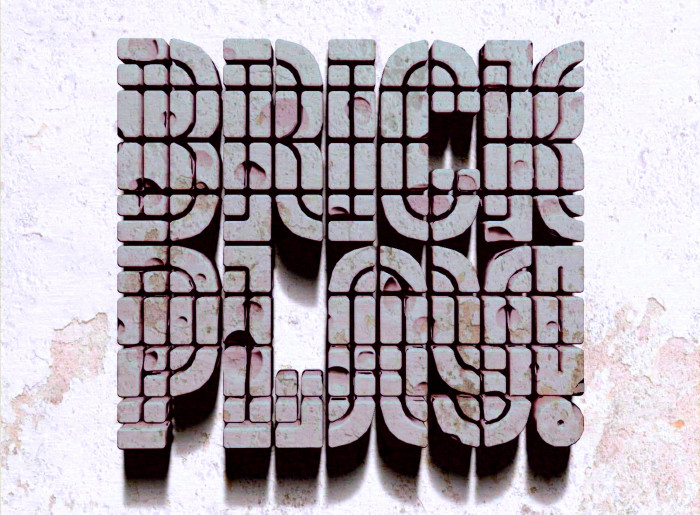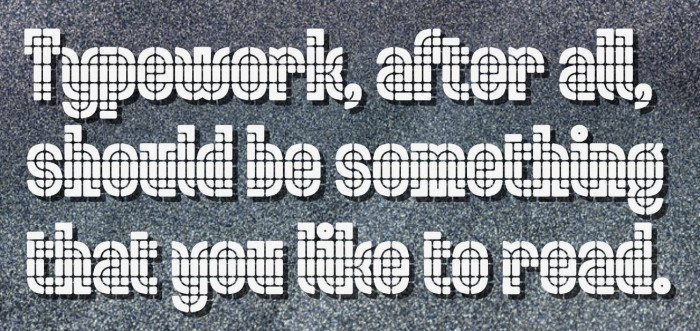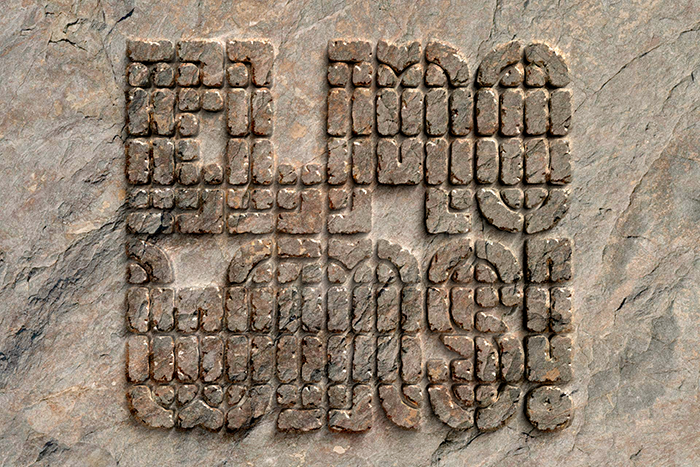
@Dear and appreciated minimum: It has been an honour for me to have received from you the possibility of rebuilding my own version of your excellent font "tm Patchpanel", as a result of your very generous offer in FS of the pieces that it was made. I feel enormously lucky and grateful for that. It was also really very interesting for me to be able to go (in a certain way) into the depths of the ins and outs to build glyphs of a great master. With all this, I have dared to propose my humble version of this great font, which is this one that I am now making public. With all this, I have tried to make the grid more obvious, showing the shape of the letters inside. I've also tried not to repeat any of the glyphs of the original font, and I confess also my inability to get a good enough H. The final result appears to lack the freshness of your original font, but offers (to my mind, I hope also to you) some other qualities. I wish I hadn't demeaned the original too much and not made it too ugly. Thanks a million.
This was just a brick play. But veeery funny. ❤️
@minimum: From the aspect of my sample, everyone can see that I have used a lower quality concrete than yours, Master. :)))
a fantastic continuation of a fantastic design
Wow. Your incredible re-imagining of the parts in an entirely new way has created a font that looks similar yet completely unique. Your trick to make the main letter shape out of the internal white lines makes the letters so much easier to read. And all the new 'bricks' you created, and greatly expanded the character set. And the way the glyphs just look better. You have taken something basic and made it awesome. I'm in awe of your typographical sense. What an amazing gift this is. I am fortunate to have friends like you and I'm forever grateful to you for this. Thank you, elmoyenique.